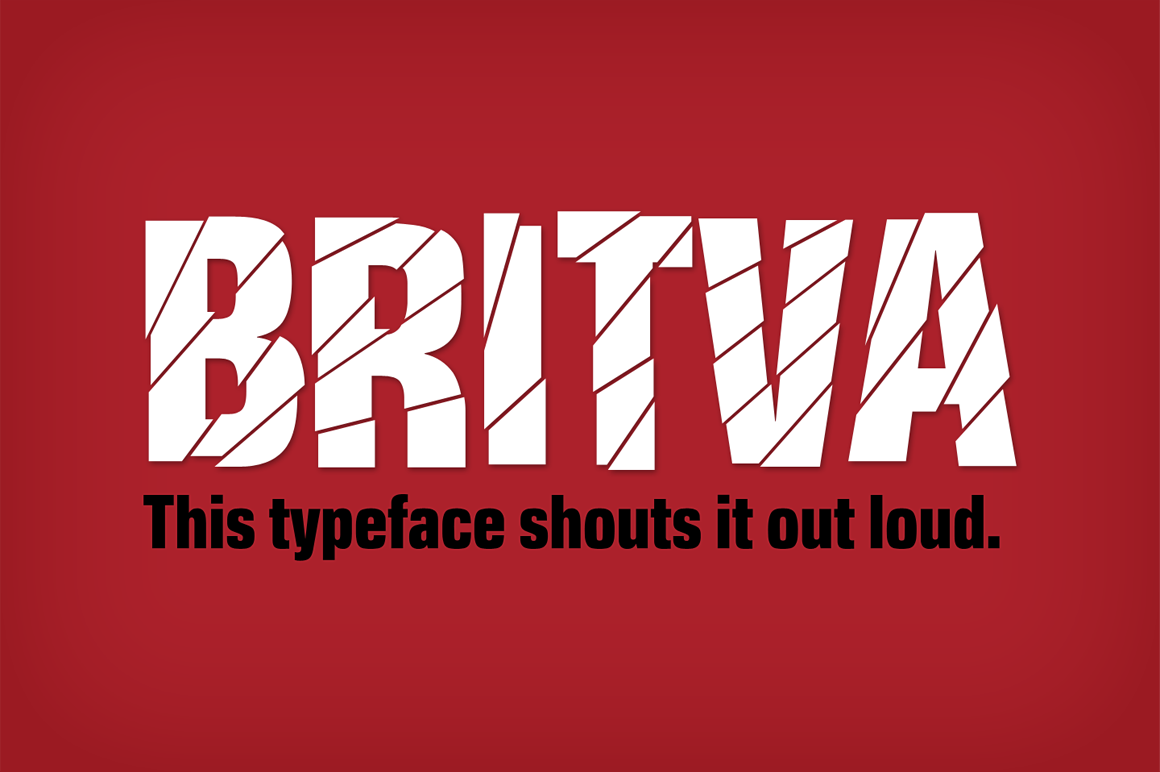
Britva Typeface
Derived from Valibuk, Britva is designed like from broken glass for eye-catching headlines. It’s a heavy, condensed face with a high x-height and tight spacing. While Valibuk can write it loud, Britva literally shouts it out even louder.
The unbroken glyphs are accessible through OpenType contextual alternates.